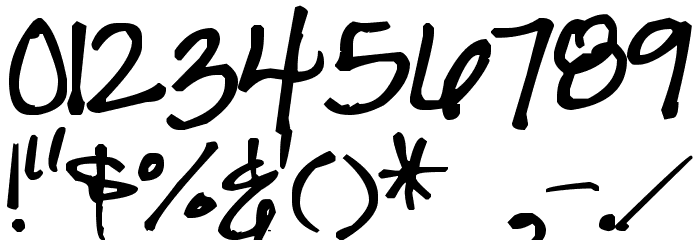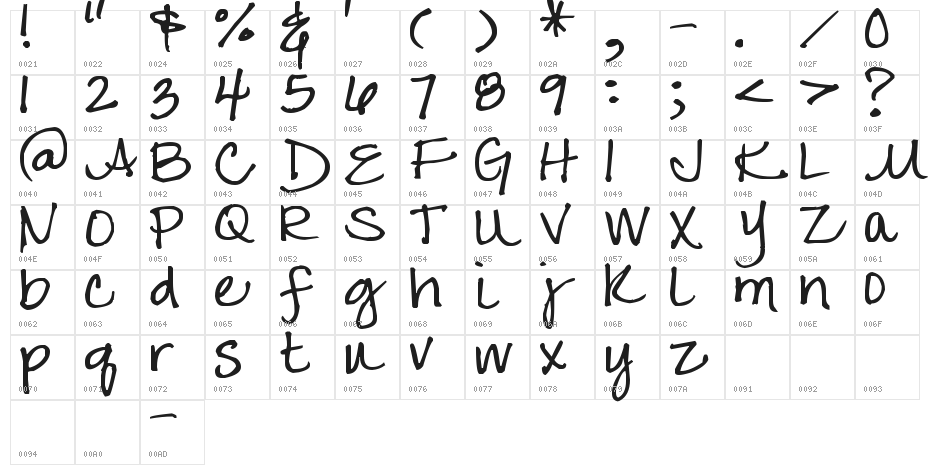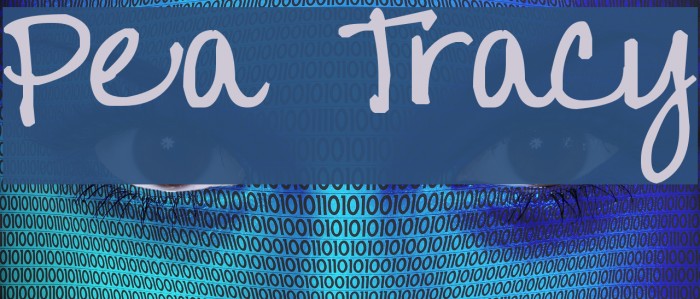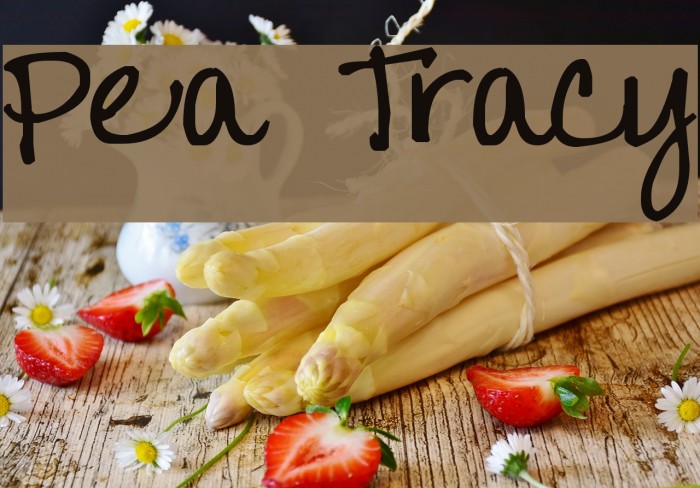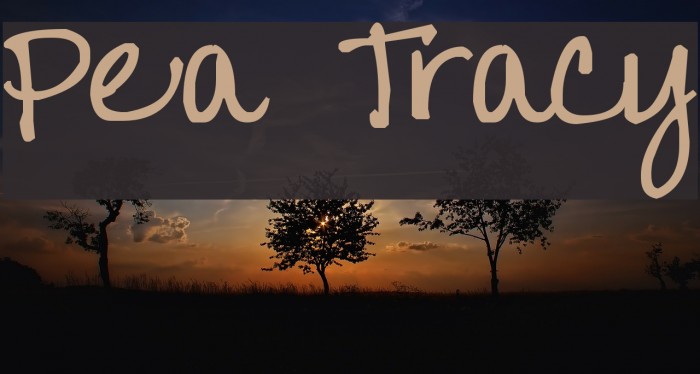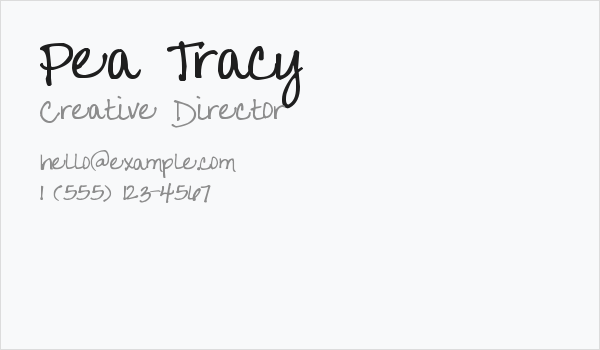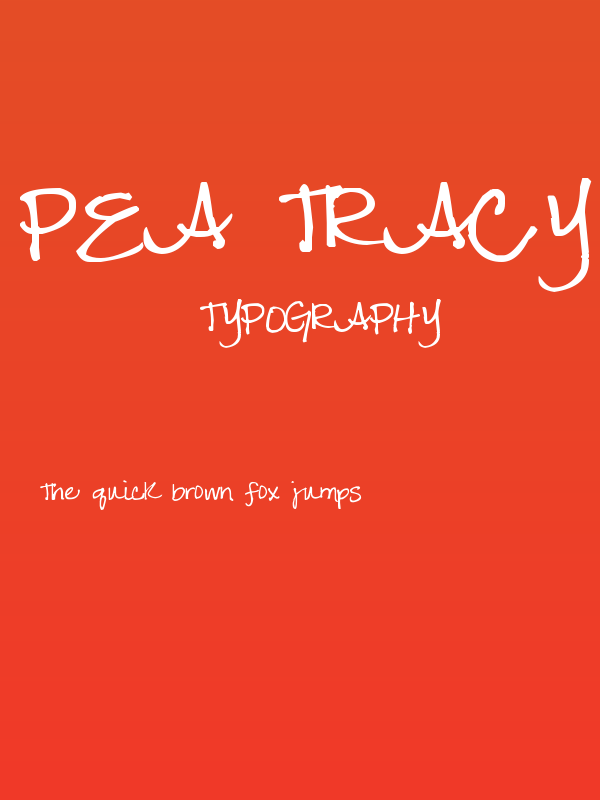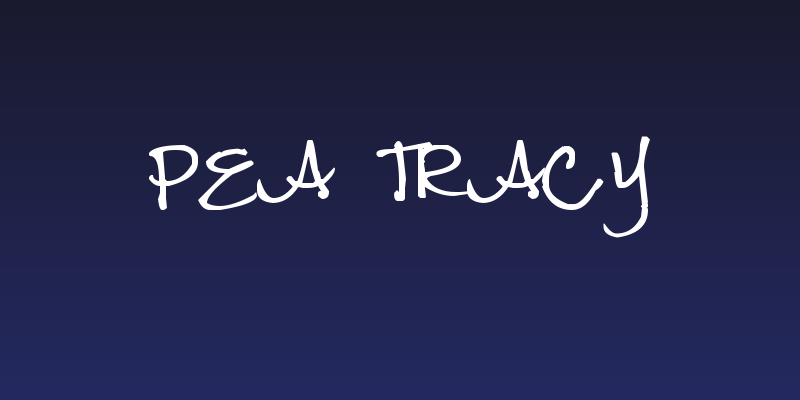
Pea Tracy Font
Pea Tracy Description
This font exudes a playful and casual handwritten style, characterized by its loose, flowing strokes and slightly uneven baseline. The letters have a natural, organic feel, reminiscent of quick, informal handwriting. The uppercase and lowercase letters maintain a consistent style, with rounded edges and a slight slant, adding to the relaxed aesthetic. Numbers and special characters follow the same informal style, ensuring a cohesive look across all text. The overall appearance is approachable and friendly, making it suitable for projects that require a personal touch.
| Proposed Projects | Ideal for greeting cards, personal notes, informal invitations, and creative projects that require a personal touch. |